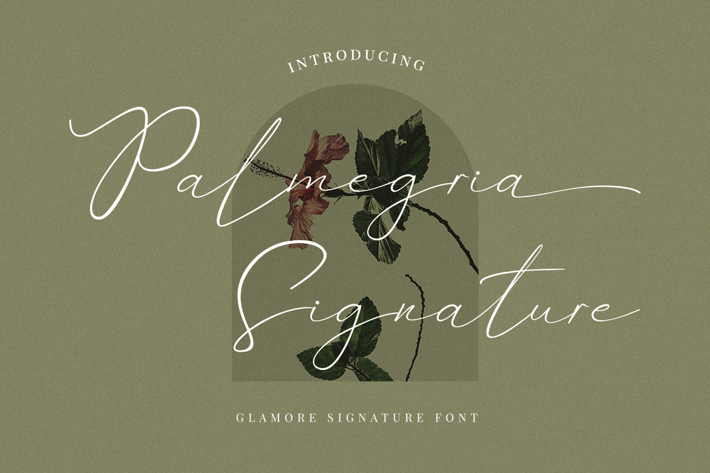
Palmegria Signature Font
Palmegria Signature is a modern high-class script font typeface. This font is good for logo design, Social media, Movie Titles, Books Titles, short text even a long text letter, and good for your secondary text font with sans or serif.
Featured:
-Standard Uppercase & Lowercase
-Numeral & Punctuation
-Multilingual : ä ö ü Ä Ö Ü ß ¿ ¡
-Alternate & Ligature